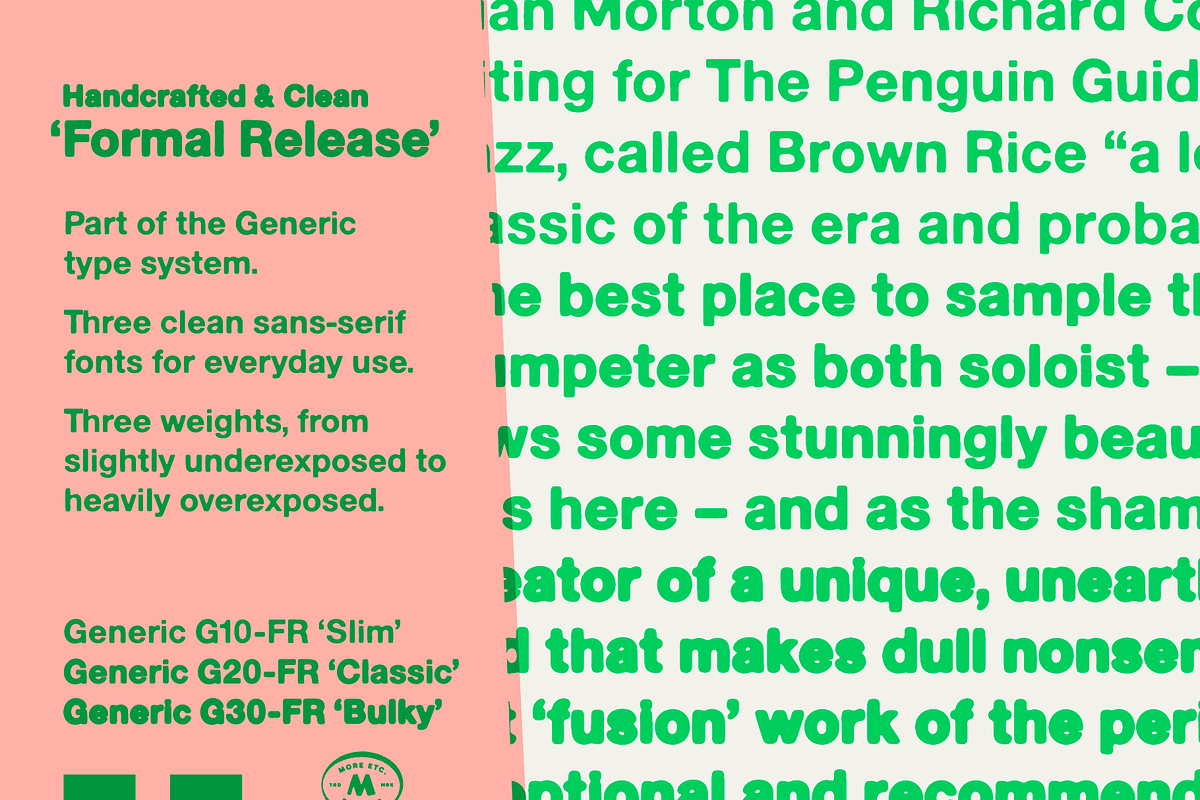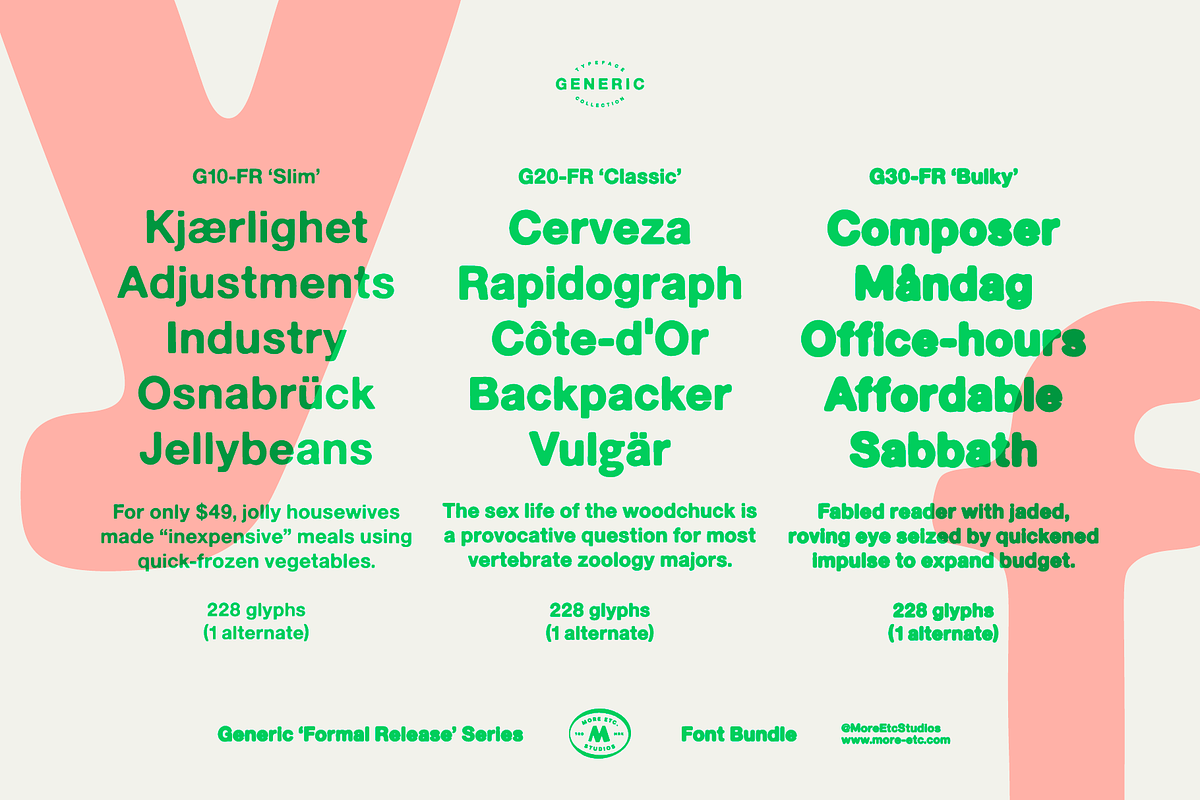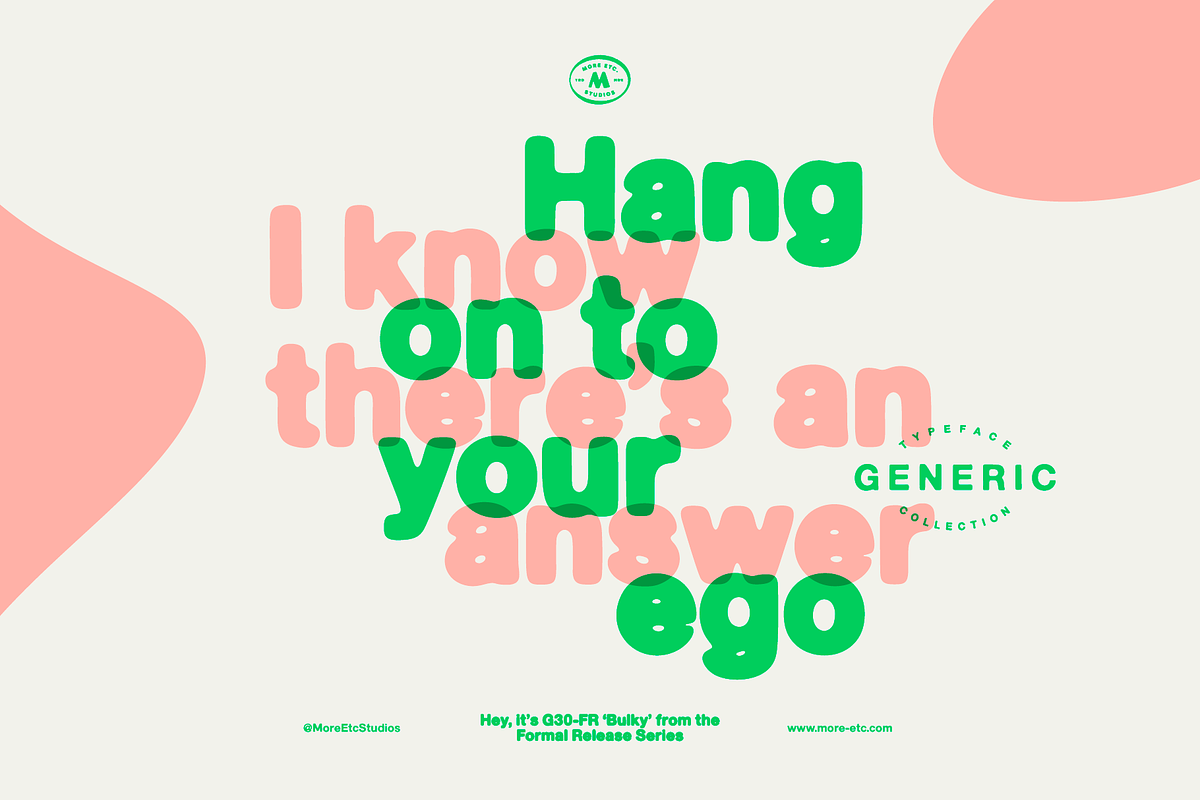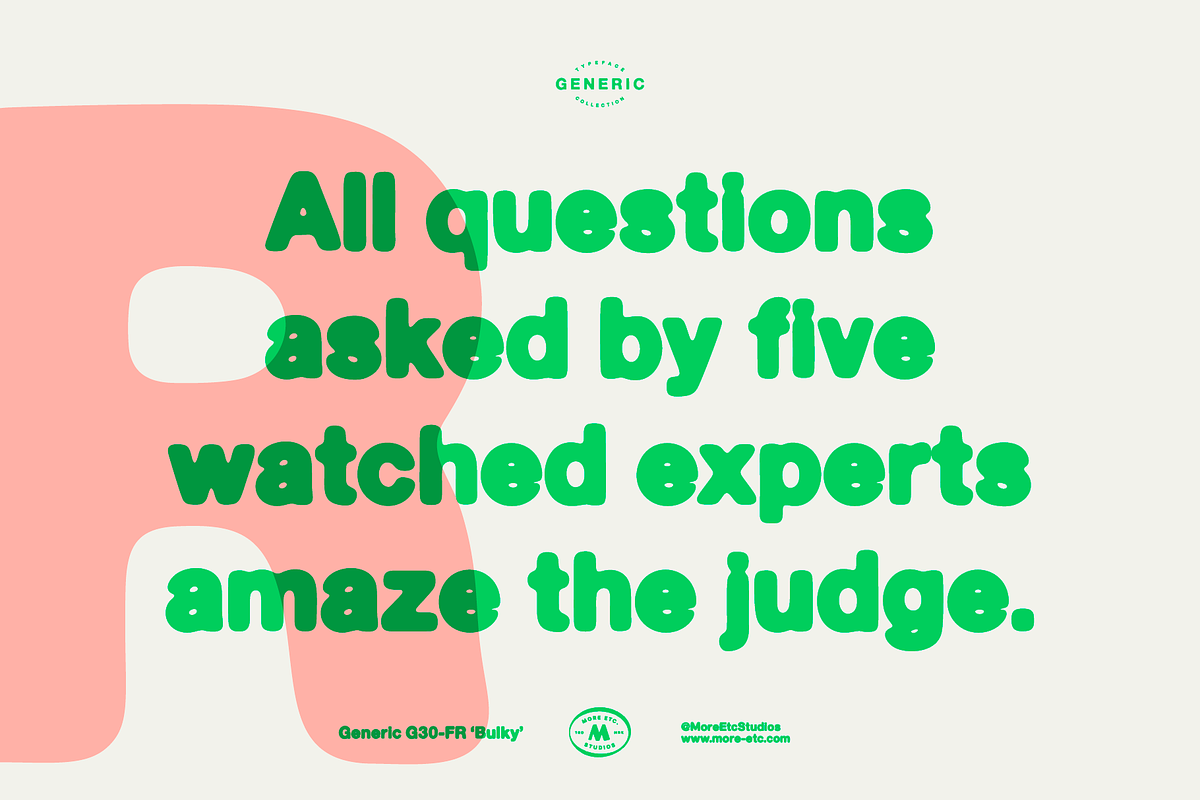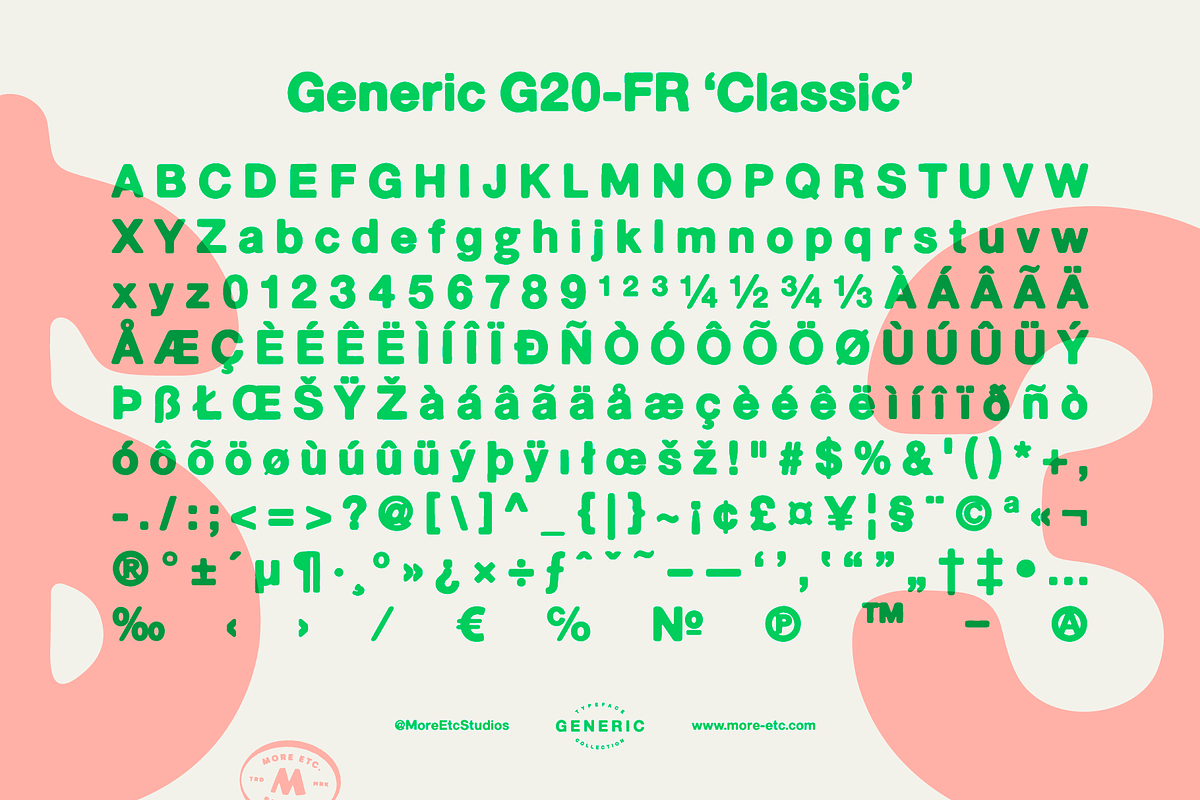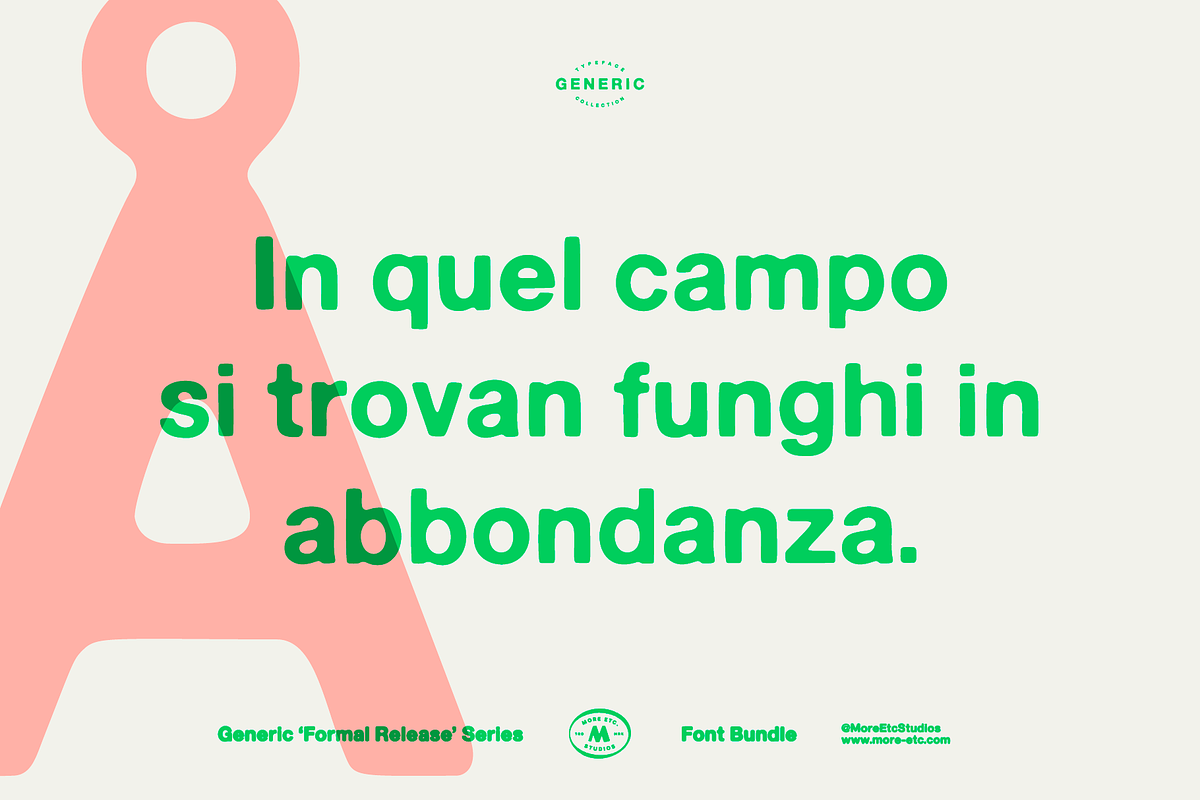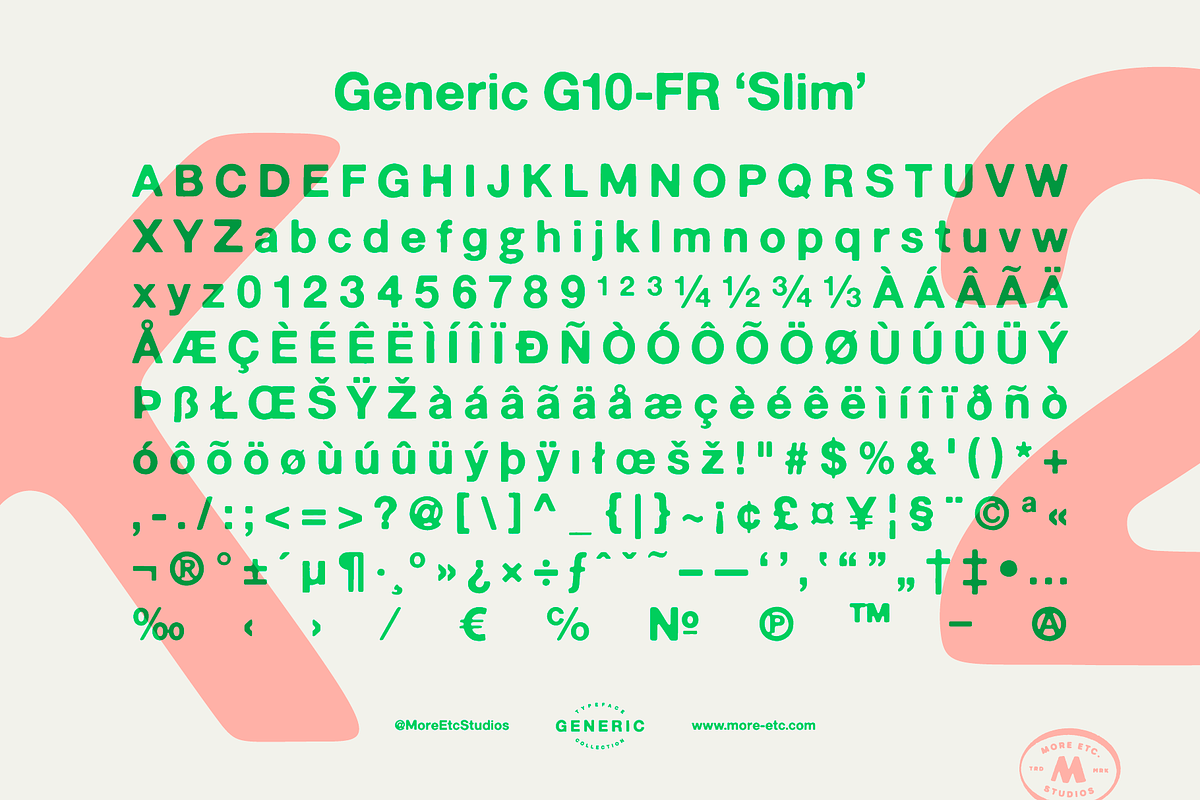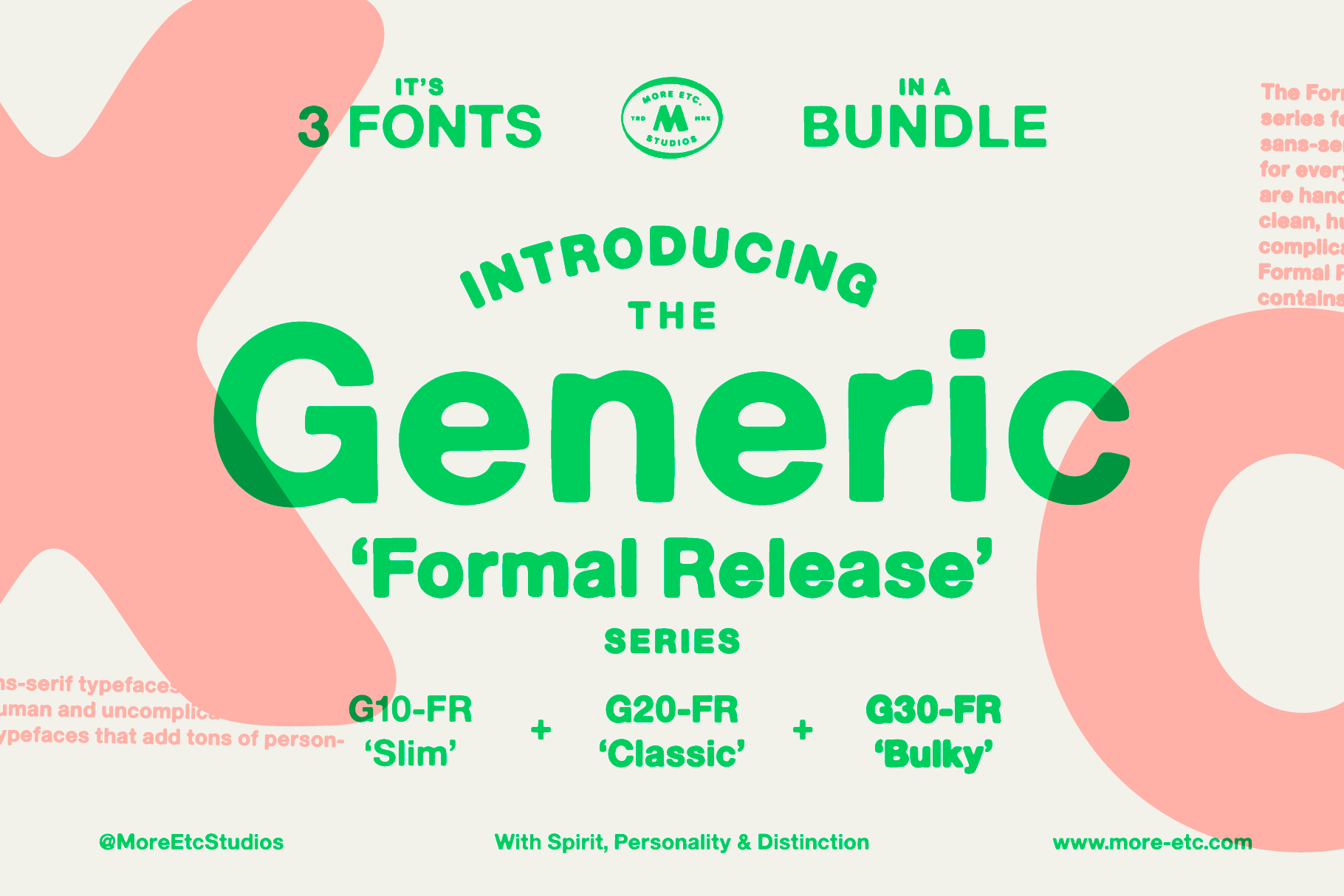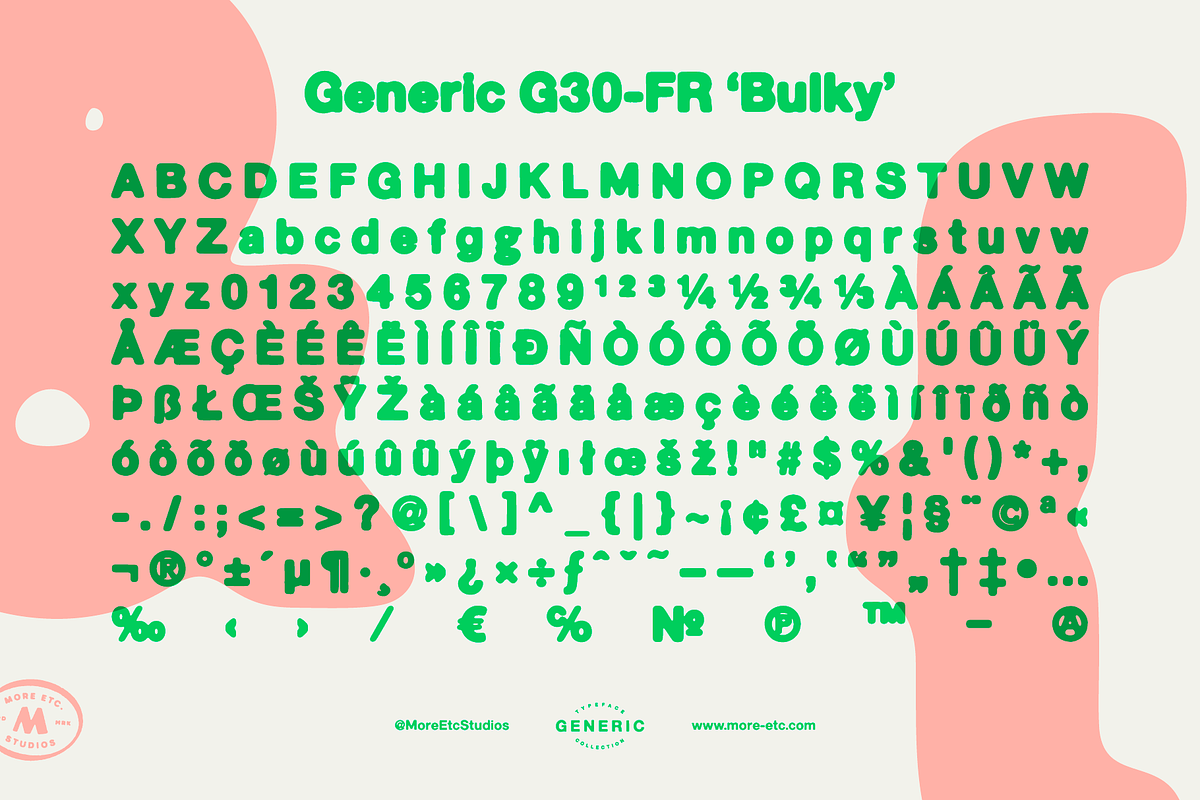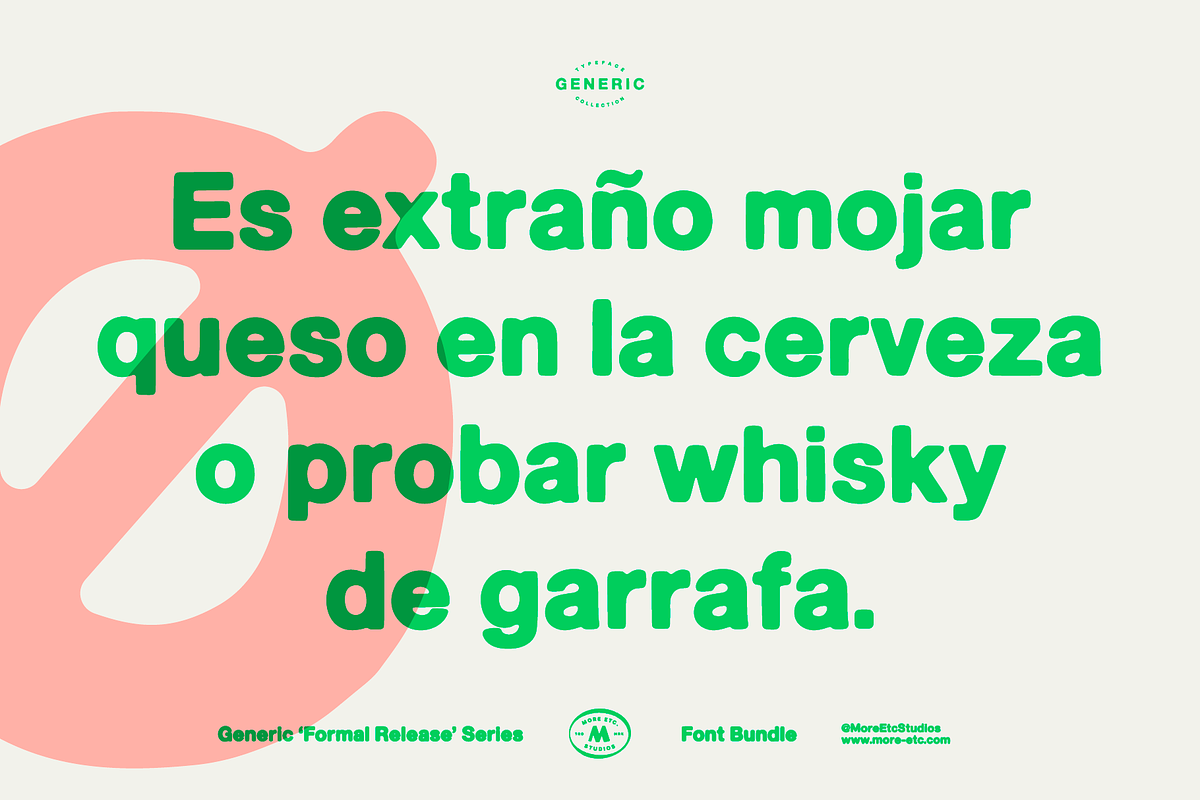
Generic – Formal Release (3 Fonts)
Handcrafted & Clean
Formal Release is part of the Generic type system — a collection of analogue-inspired sans-serif display fonts by More Etc. Studios.
This series focuses on clean, handcrafted letterforms with subtle exposure variations. Straightforward and human, yet distinct. Designed for everyday typography with character.
Three weights, from slightly underexposed to heavily overexposed.
- G10-FR ‘Slim’
- G20-FR ‘Classic’
- G30-FR ‘Bulky’
Each font contains alternate characters (OpenType features).
Ideal for branding, editorial design, packaging and typographic systems that require clarity with personality.